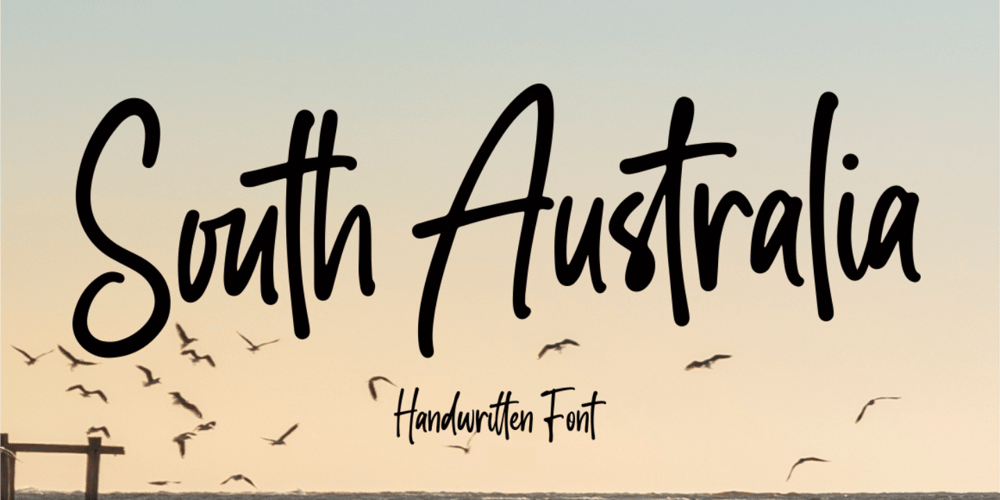
South Australia Font Family was designed by Siti Nurjanah and published by NJ Studio. South Australia contains 1 styles and family package options. South Australia a handwritten font is a font with ligatures. It features authentic characters that will take your projects to the next level!This font is PUA code which means you can easily access all the glyphs and ligatures that are full of authentic! It also features many special features including glyphs and alternate ligatures. font designs that are made for various vector designs, printing such as digital wedding blogs, online shops, social media, while printing can be used in the field of product clothing, accessories, bags, pins, logos, business cards, watermarks and many others …so it can make your product look cute and attractive, and also Multilingual support!!!Happy design …